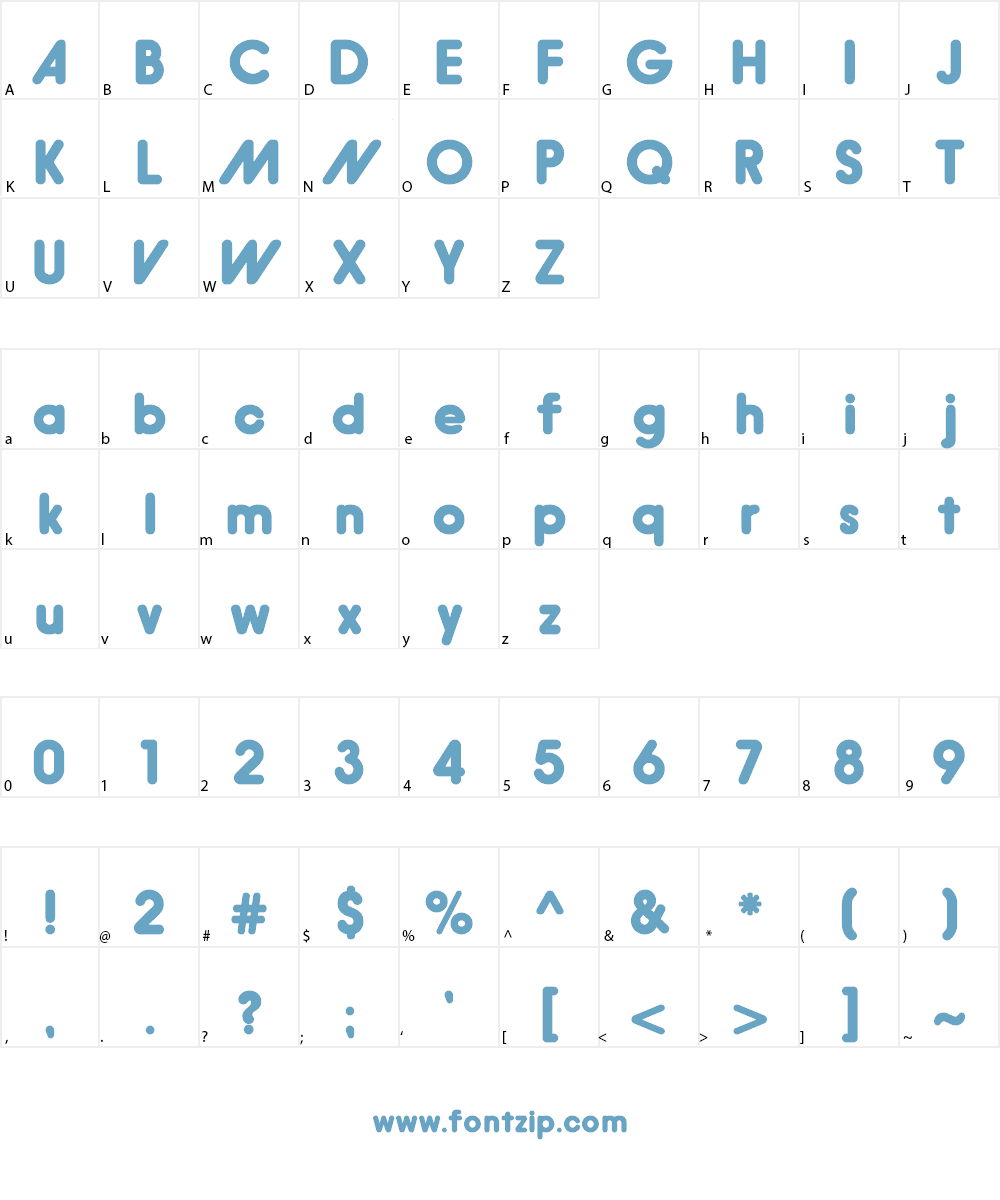
From the UK's newest, and fastest growing online type foundry, HypeForType comes Hiruko. Hiruko is a full family of 15 different styles. Inspired by the early Swiss movements, Hiruko offers creativity and clarity within many media. Influenced by Japanese culture, Hiruko is based on the idea that less is more, however this applies in other directions when referring to the amount of work gone into producing the type family. Hiruko is produced to the the highest standard. Each and every type weight contains full 255 characters, manual kerning, pairs, and tracking. Looking for an sans-serif not only with style, but that will also support the dozens of languages your boss needs to you translate? Well look no further, Hiruko is the multi tasking global translation hero with a hint of class.